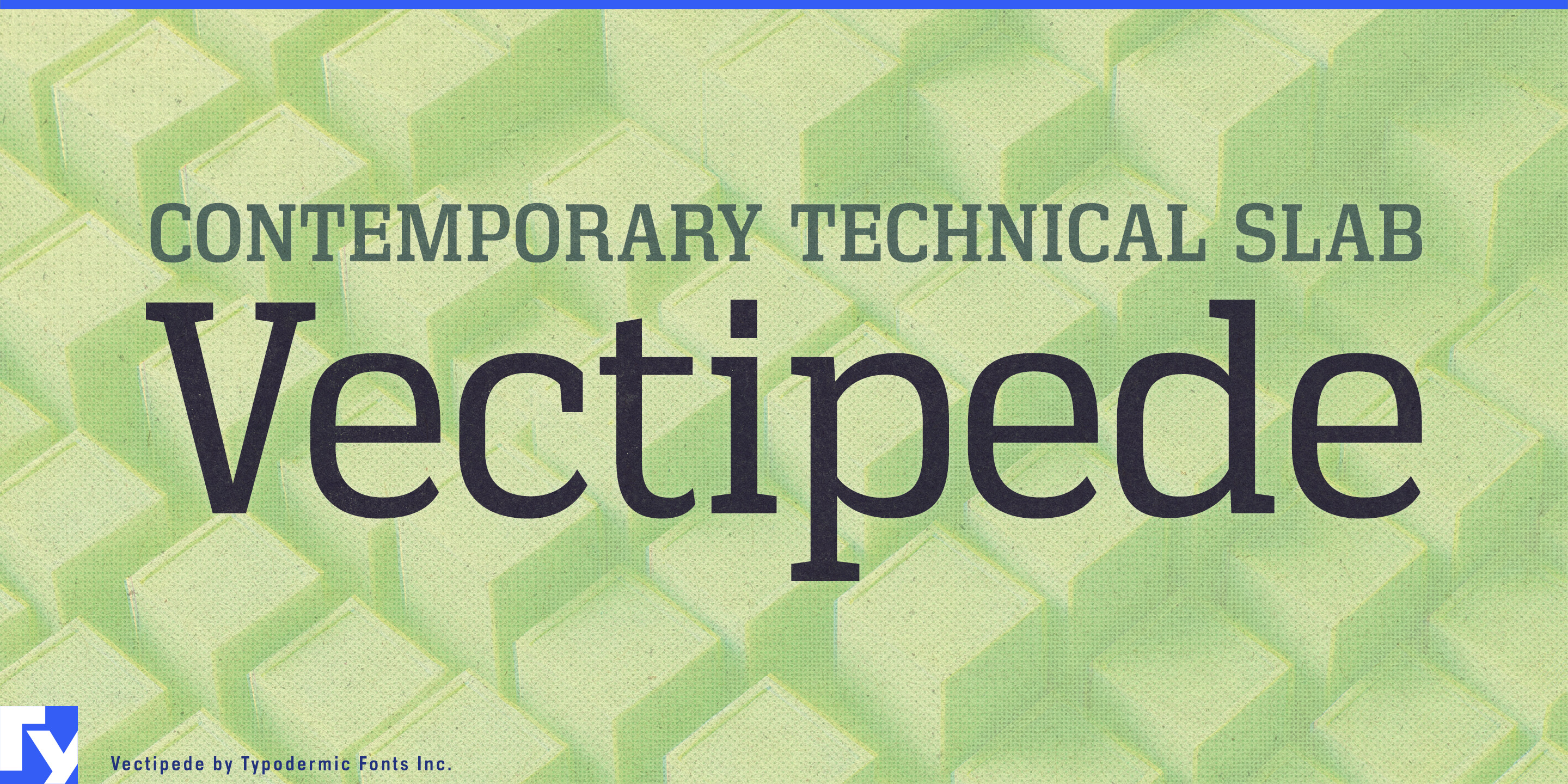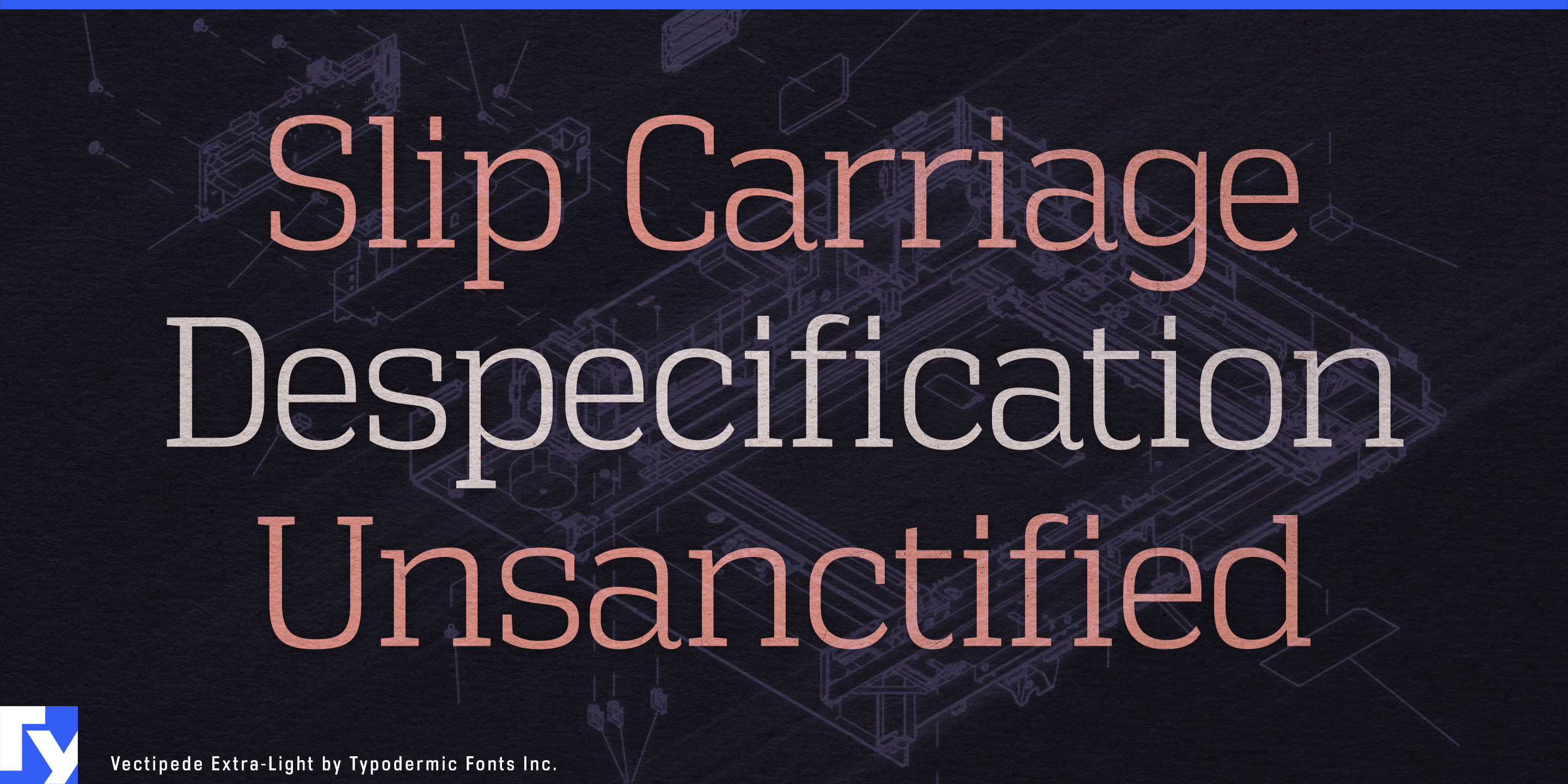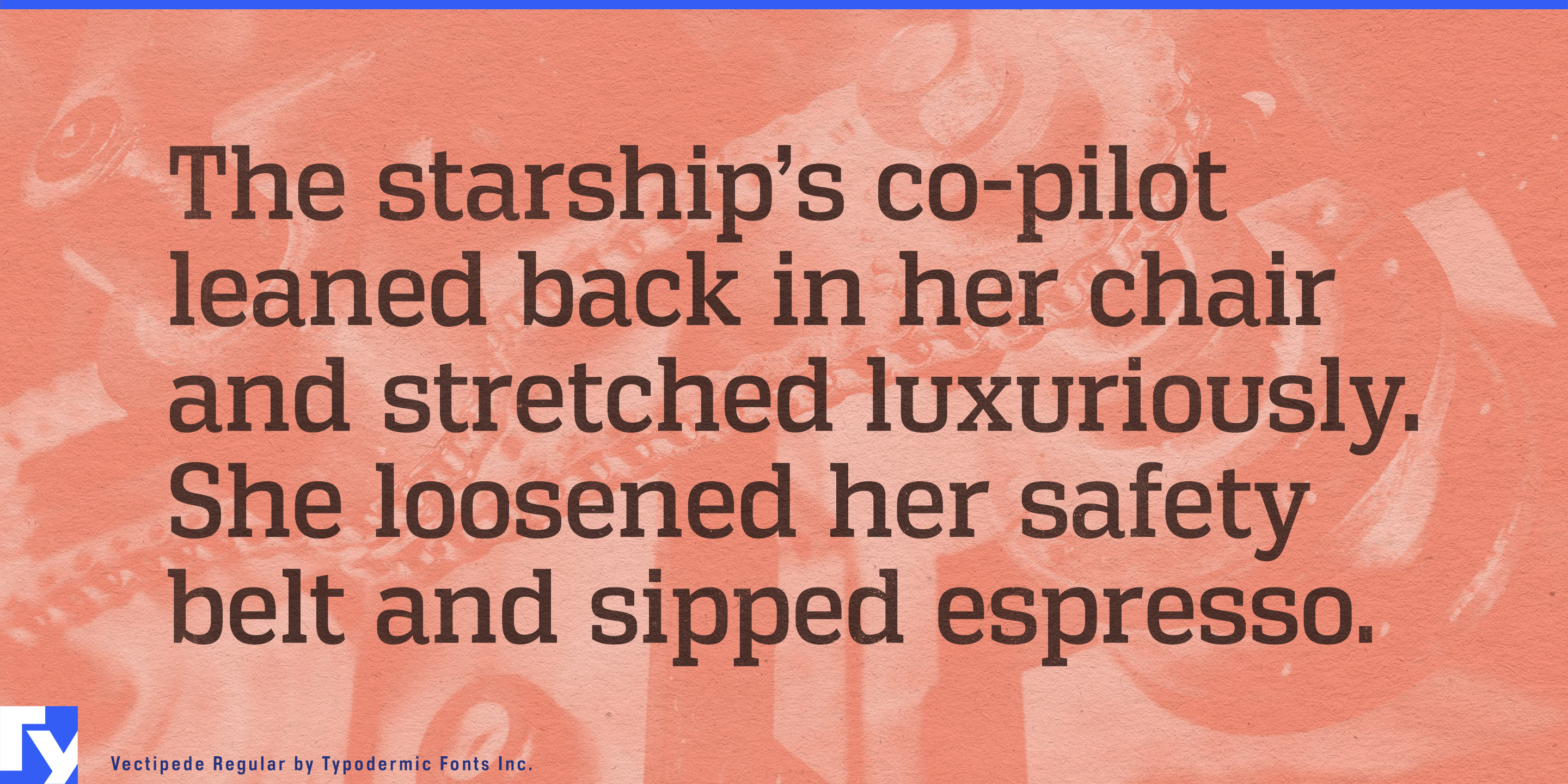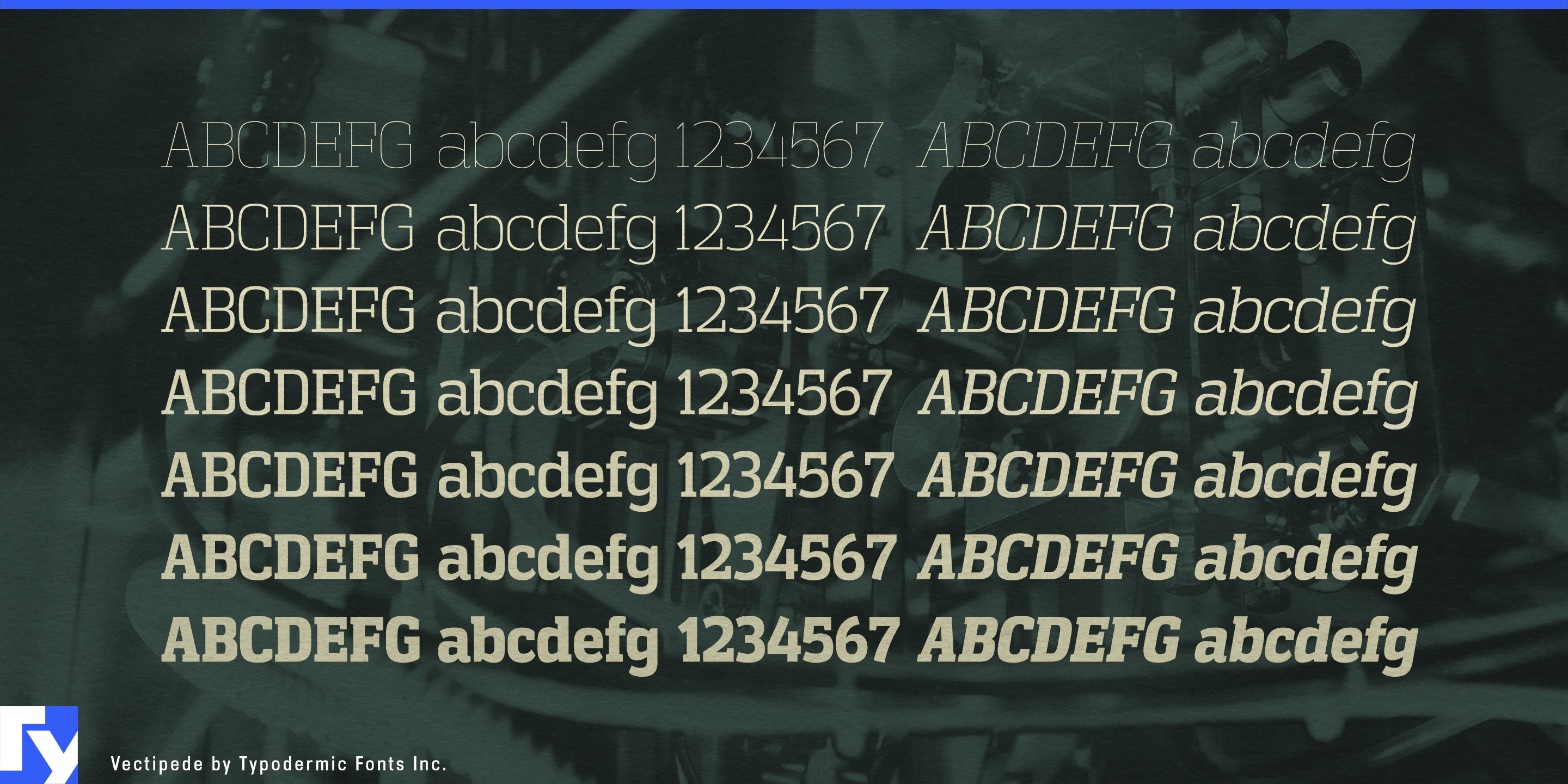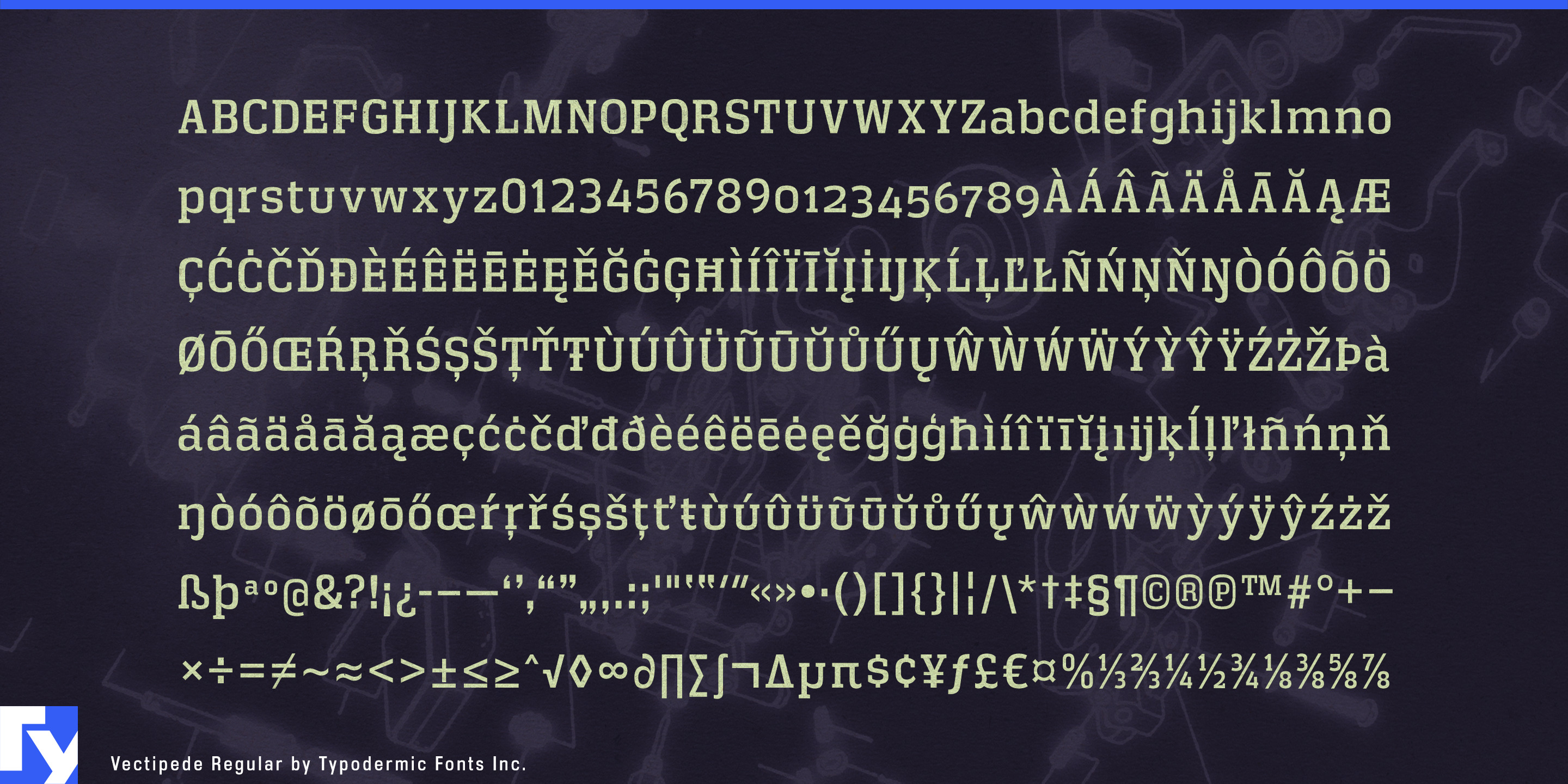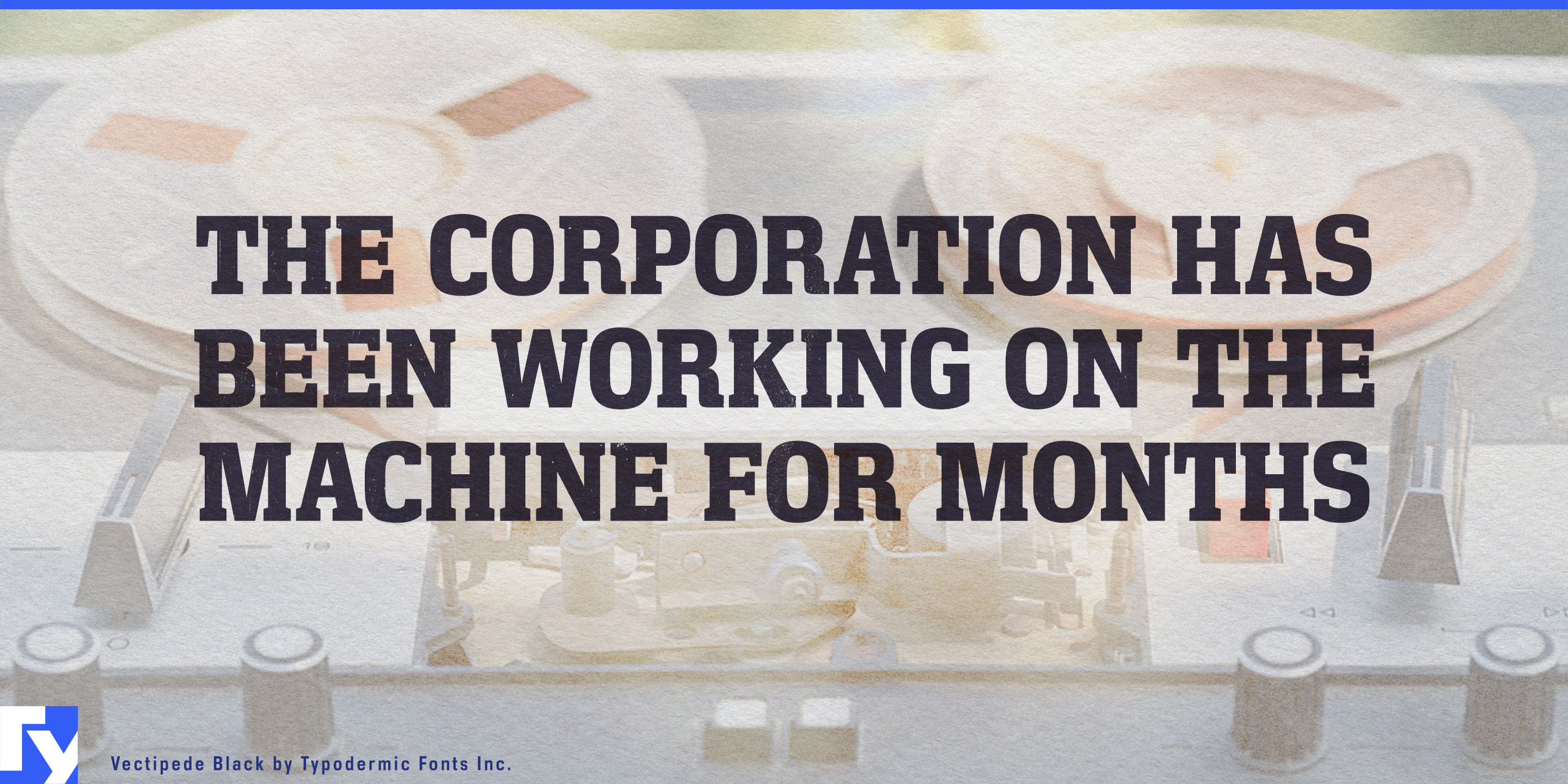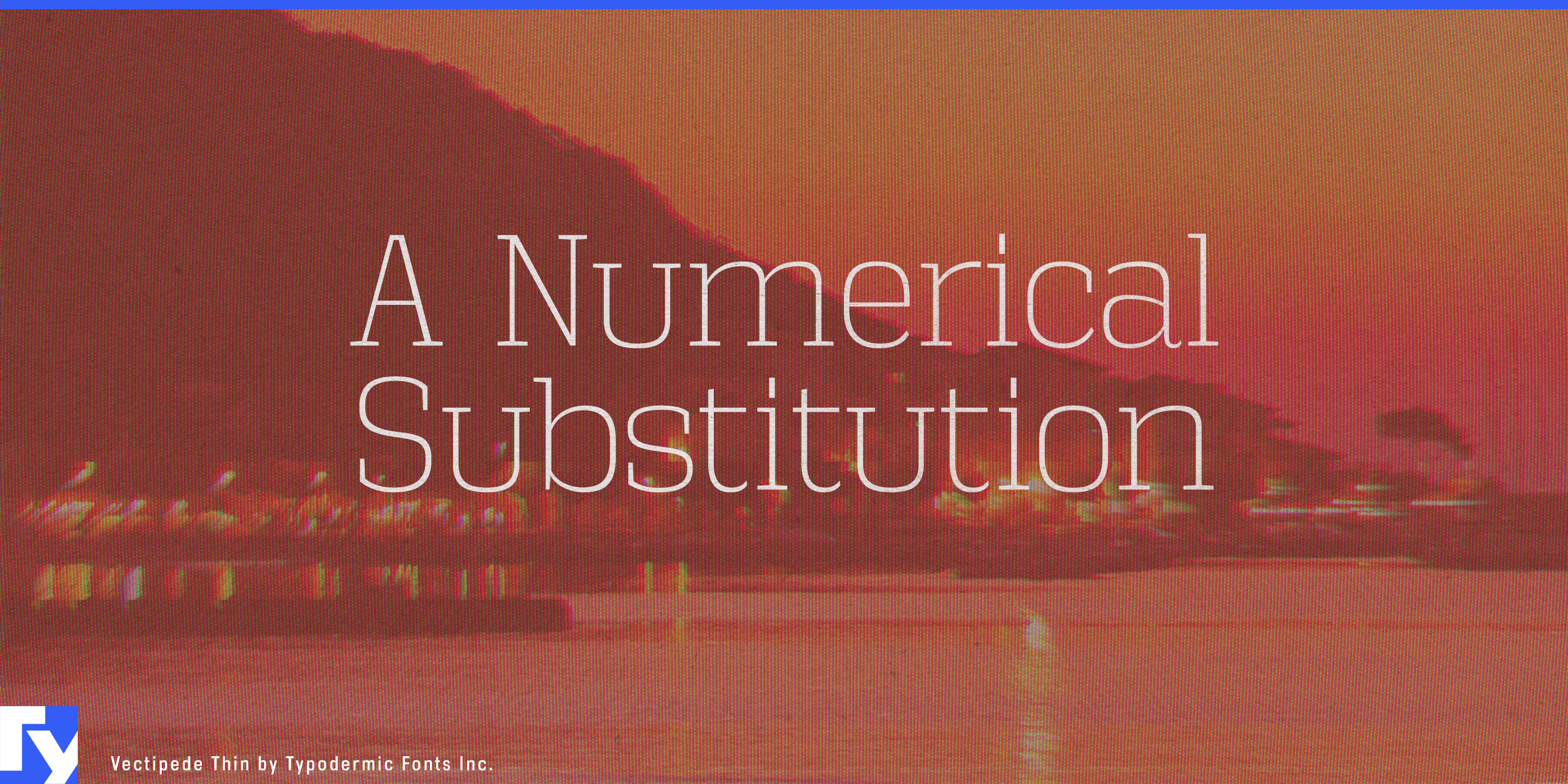
Vectipede
Vectipede is a contemporary slab serif typeface built for clarity, strength, and adaptability. Its super-elliptical forms strike a balance between technical precision and human warmth, making it as effective in a research journal as it is on a product package or company logo.
With seven weights and italics, Vectipede moves easily between roles—commanding headlines, confident editorial layouts, and signage that remains legible in the most demanding environments. For brands and organizations, it projects dependability without sacrificing modernity, offering a typographic voice that is both serious and approachable.
From corporate identity systems to consumer packaging, Vectipede provides the consistency and authority today’s designs demand. When your work needs to stand up, be clear, and be trusted, Vectipede delivers.